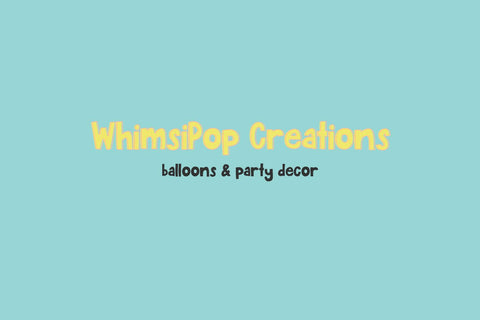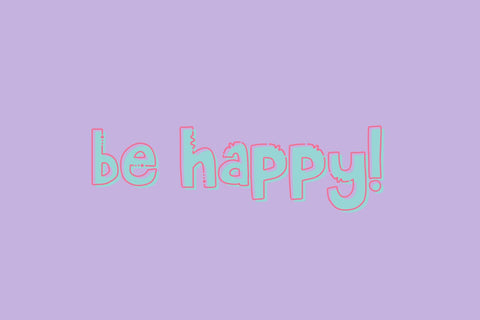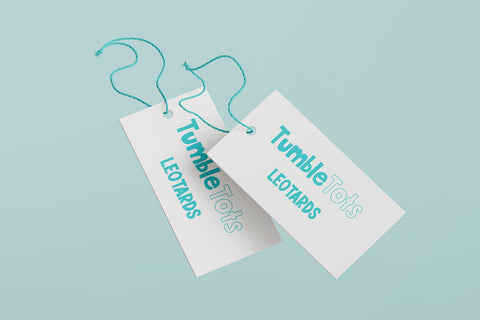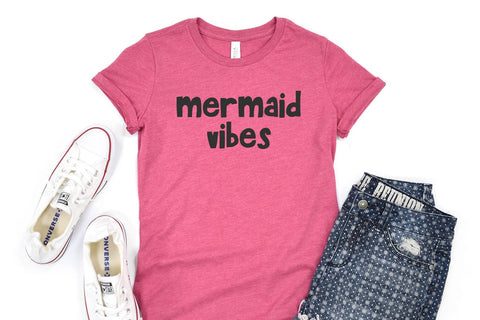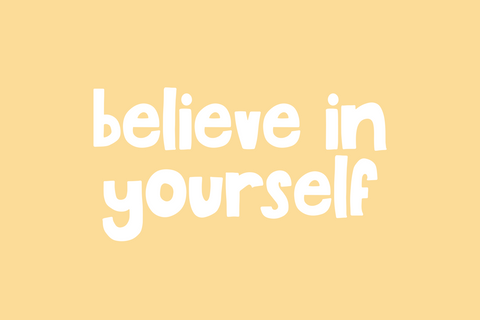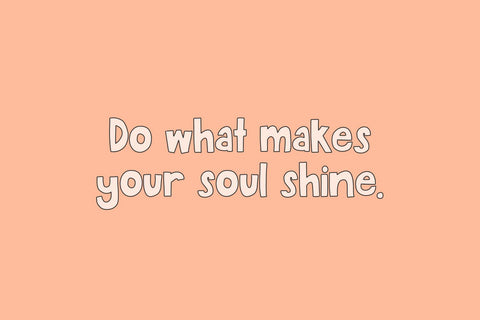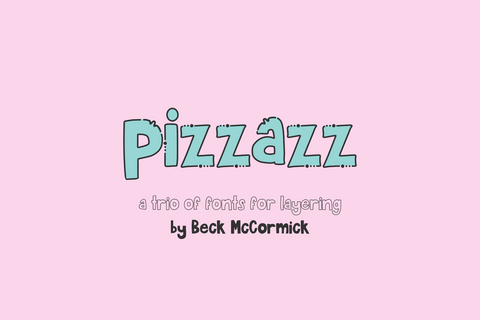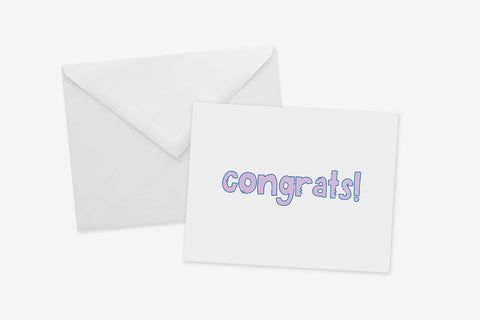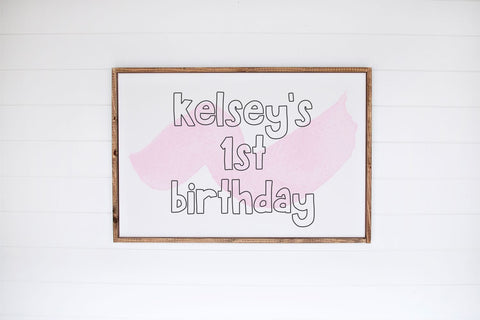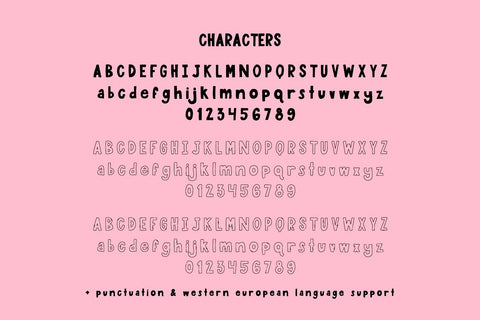
Pizzazz Font Trio
Pizzazz Sans Trio is a super fun set of fonts! This trio of fonts includes a solid version, an outline version, and a second outline version with a little more pizzazz & playfulness! Use each font on their own, mix & match, or layer them! Pizzazz Sans Trio is perfect for logos & branding, greeting cards, painted banners, digital planners, note-taking apps, Canva, Cricut projects, Silhouette projects, designing SVG files, laser cutting projects, & more.
Pizzazz Sans Trio includes (in each version):
- full upper + lowercase characters
- numbers + punctuation